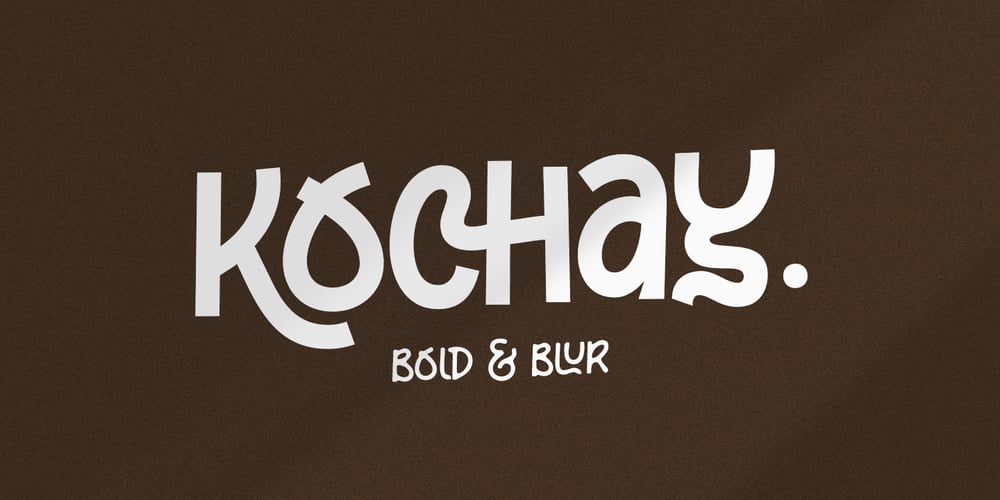
Kochay Font Family was designed by Jarnawi Saja and published by Grontype. Kochay contains 2 styles and family package options. Kochay is an unique bold and blurred hand lettering monoline font. this font is outstanding with its sharp and bold style that makes kochay font is more tough and aesthetic. This font equipped with extra ligatures and alternates. Kochay is perfect for branding, text header, t-shirt design, logotype and other stunning graphic design.Features: Basic Latin Glyphs Multilingual Numeral and Punctuation Standard Ligatures Stylistic Alternates Thankyou for picking up this font, hope you enjoy it.Regard. Grontype